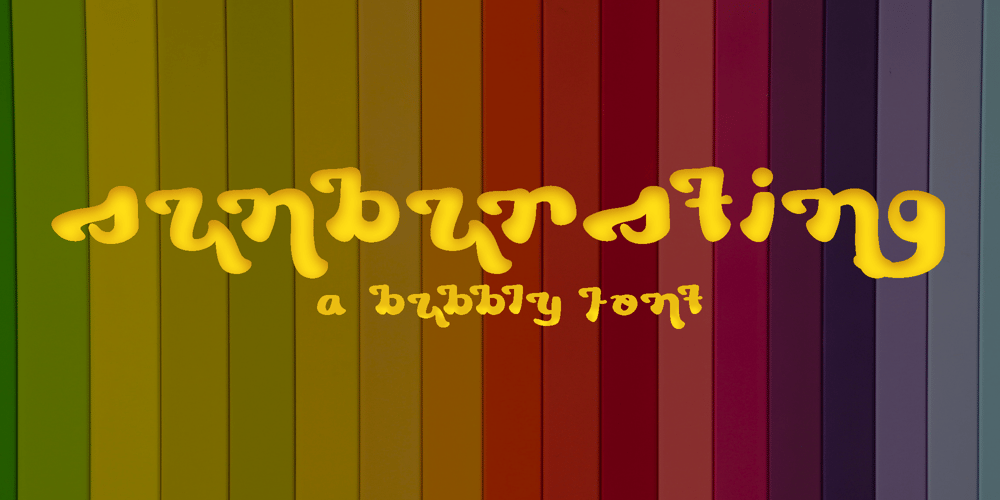
Sunbursting
Sunbursting font
Sunbursting Font Family was designed by Rachel McBride and published by RVM Creative. Sunbursting contains 2 styles and family package options. Sunbursting is the perfect, bright retro font for all of your summery needs. Great for use on book and album covers, websites, branding, clothing, and social media. It has playful, bubbly serifs on letters and alternates to give your projects all the personality they need.Glyph Count: 449This font also has multilingual support, and supports most western languages!Comes with two styles, regular and outline.